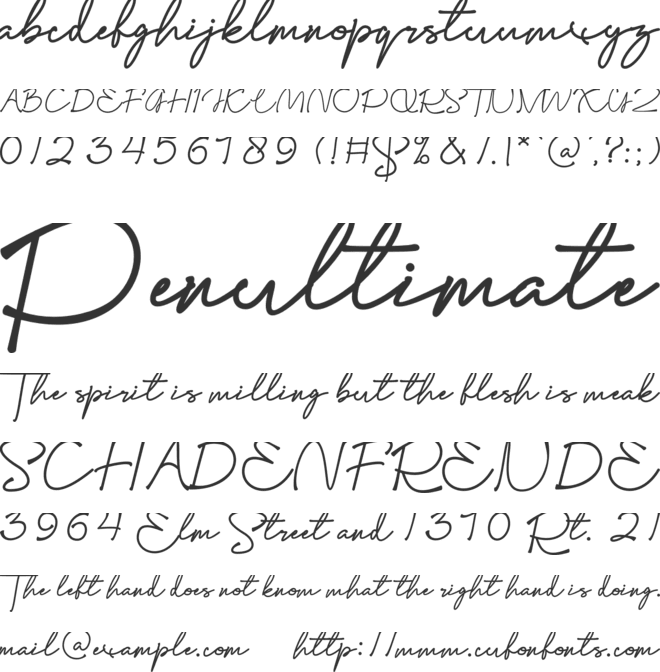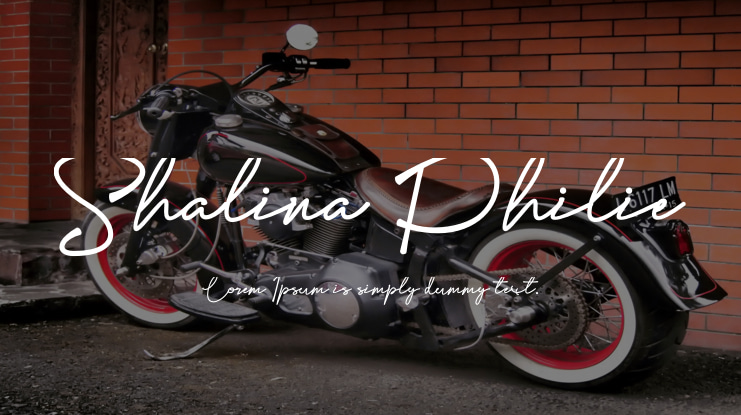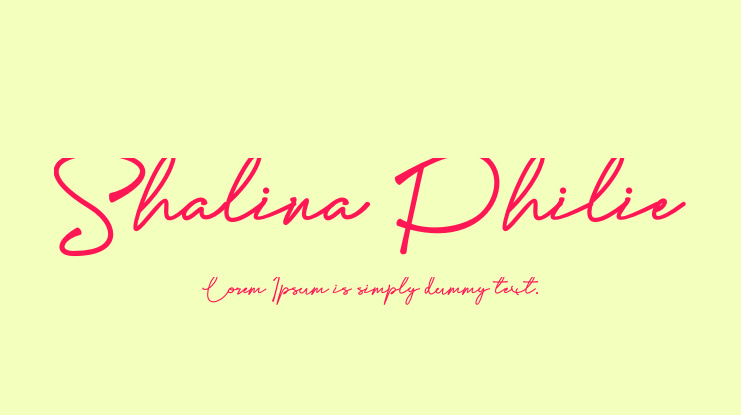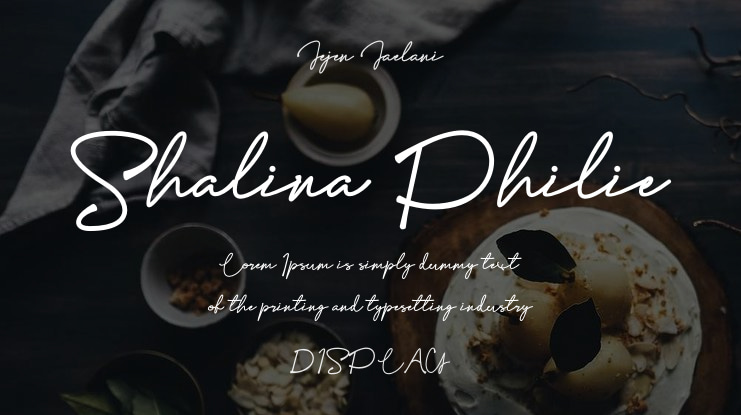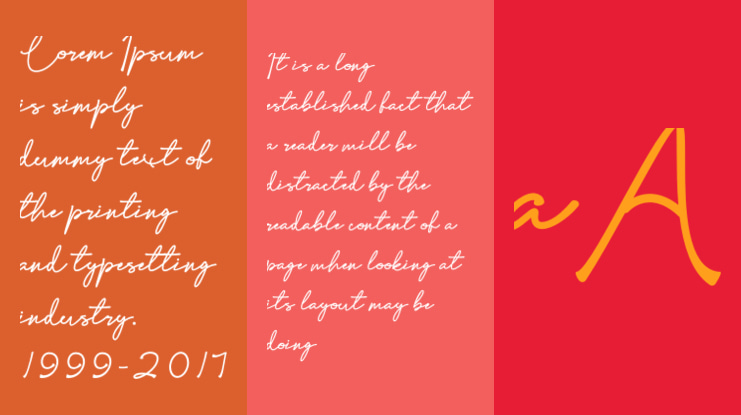
Shalina Philie Font
Introducing "Shalina Philie," a stylish and elegant signature font designed to capture the fluidity and charm of natural handwriting. Its smooth, flowing curves and meticulously crafted letterforms provide a personal and sophisticated touch, perfect for adding a human feel to logos, branding, invitations, and social media posts. With a subtle blend of grace and modernity, "Shalina Philie" infuses warmth and personality into any design, making it an ideal choice for projects that aim to convey authenticity, creativity, and individuality.